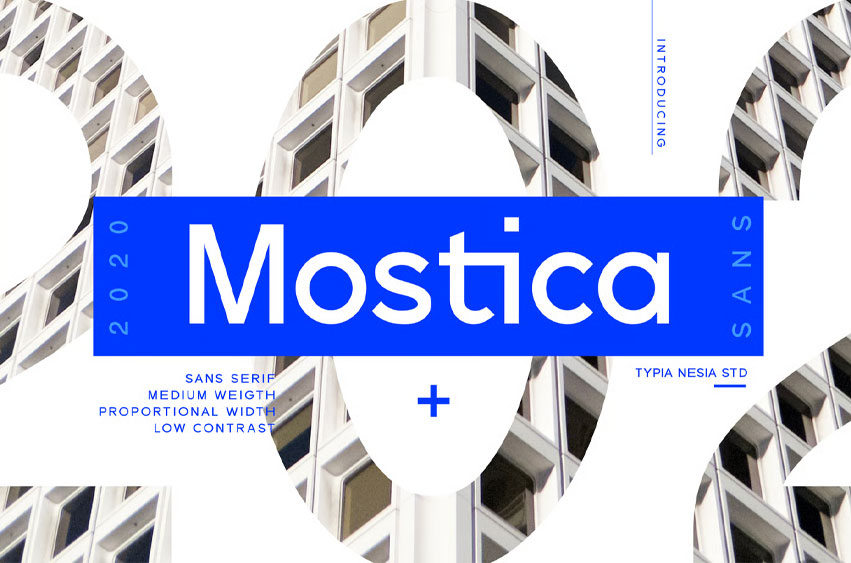
Mostica Sans Font is a distinct, elegant sans serif that blends traditional influences into a contemporary aesthetic.
Its well balanced Latin details contain distinctive contrasts. Use Mostica to achieve an exquisite, yet subtle look and maximum versatility.